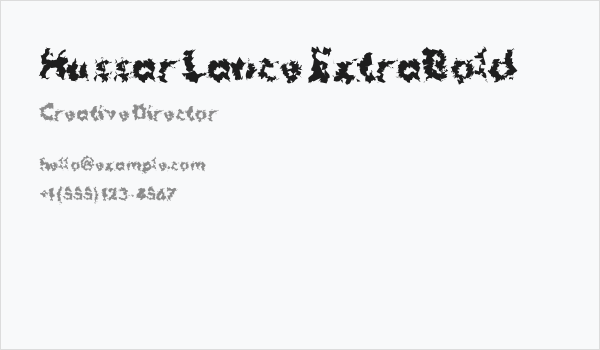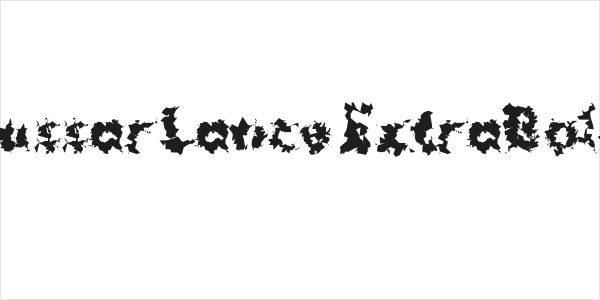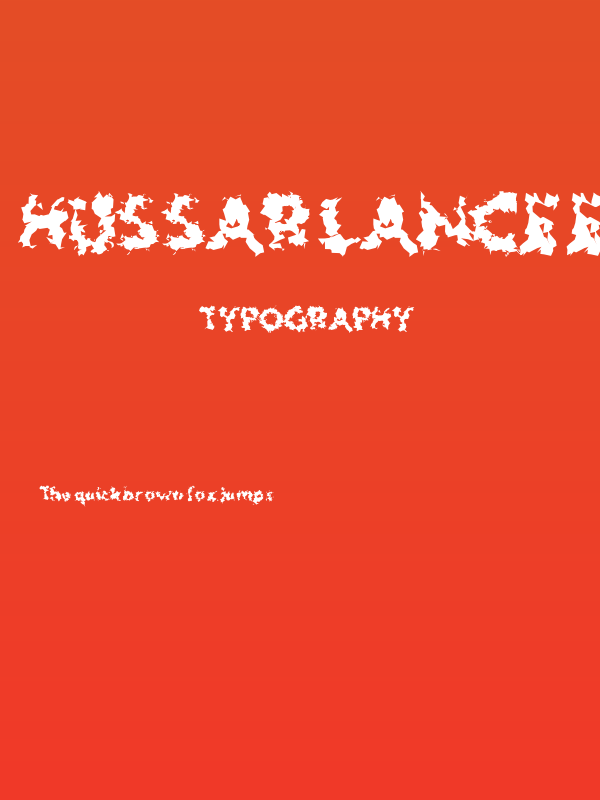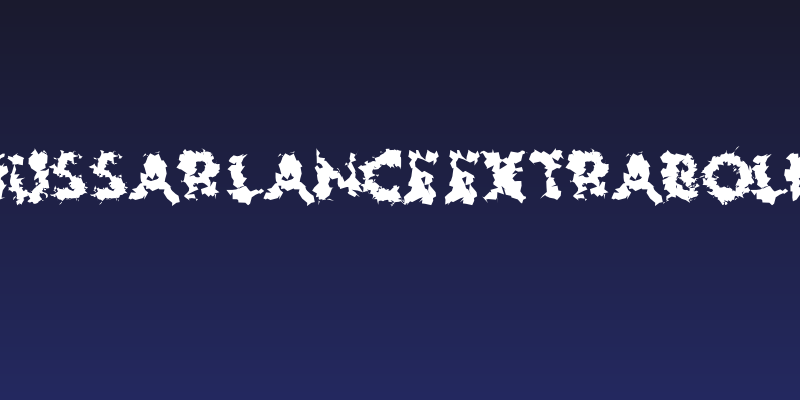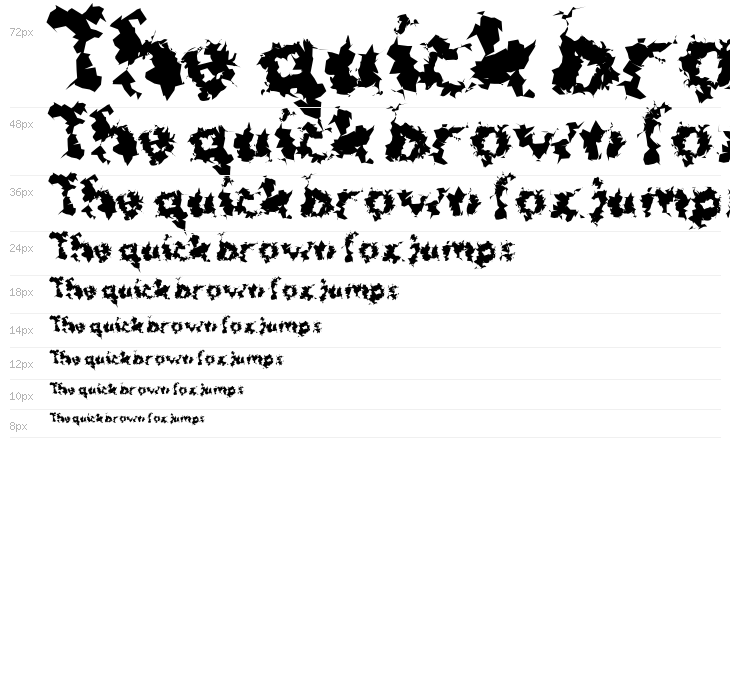
Hussar Lance ExtraBold Font
Hussar Lance ExtraBold Description
This font features a highly decorative and bold style, characterized by its jagged and fragmented edges that create a dynamic and chaotic appearance. The letters are heavily stylized, with irregular shapes that suggest movement and energy. The overall design is reminiscent of torn paper or shattered glass, giving it a unique and eye-catching look. Despite its boldness, the font maintains a level of readability, making it suitable for impactful headlines or artistic projects. The uppercase and lowercase letters share a consistent design theme, while the numbers and special characters are equally distinctive, enhancing the font's cohesive aesthetic.
| Use Case | Headlines, Logos, Artistic projects |
| Proposed Projects | Ideal for album covers, posters, or any project needing a bold, artistic touch. |